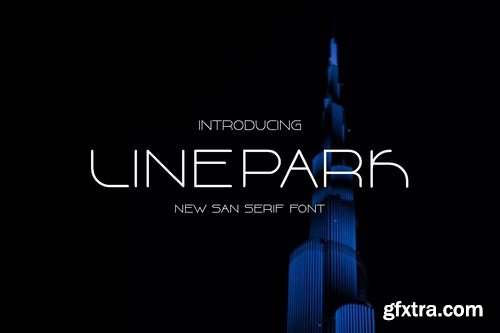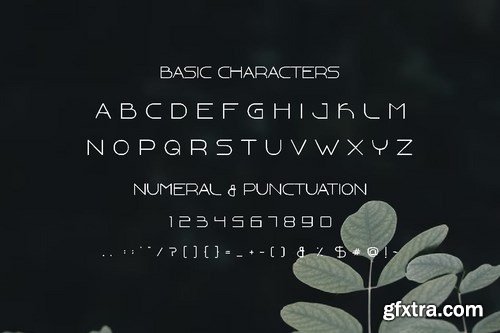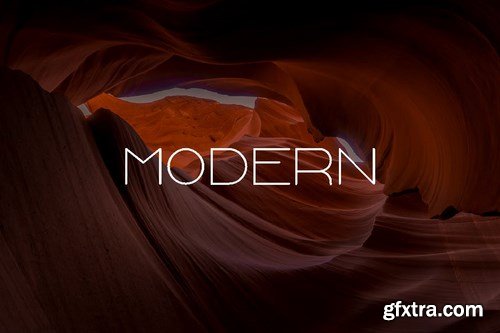
Line Park Font is a elegant line typeface inspired by handmade lettering this, typeface is ready to use and suitable retro design like for Logotype, Label, Sign Painting, Badges, Poster and etc. The Open Type features can be accessed by using Open Type savvy programs such as Adobe Illustrator, Adobe InDesign, Adobe Photoshop Corel Draw X version, And Microsoft Word.